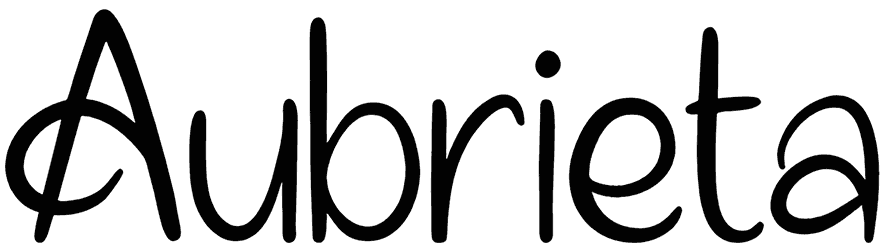
Aubrieta Font
Aubrieta is mostly known for its excellent legibility and the potential of sharing a vibe of personalization, delicacy, and momentum with the audience. This script font comes with rounded characters, thus it would be really ideal for any kind of graphic content, including magazines, wood engravings, social media posts, and business cards.